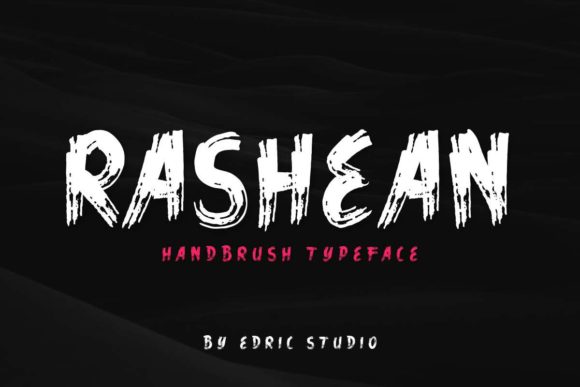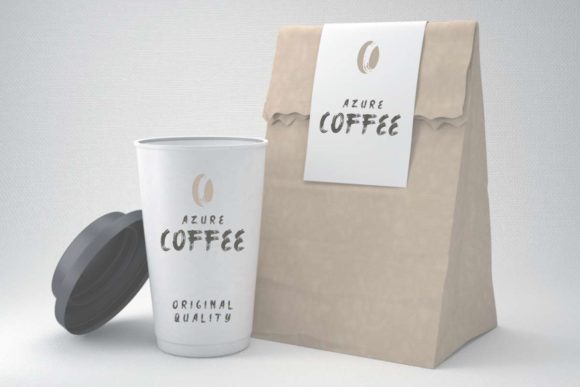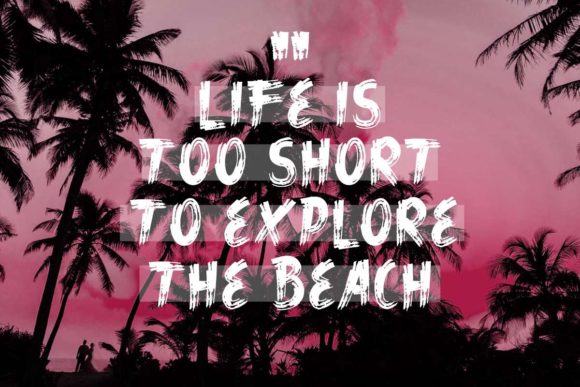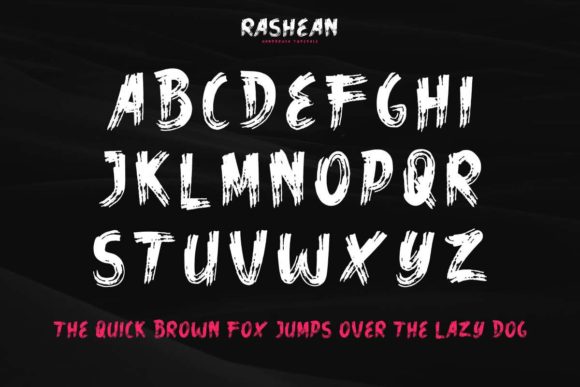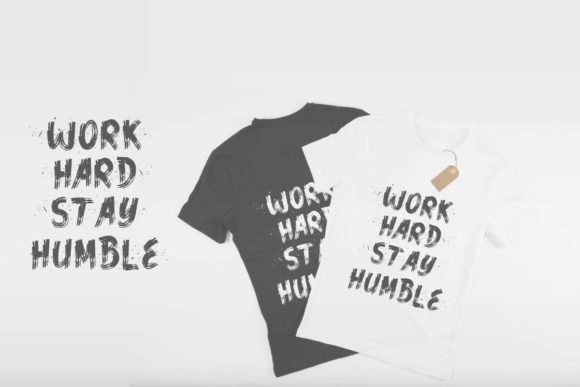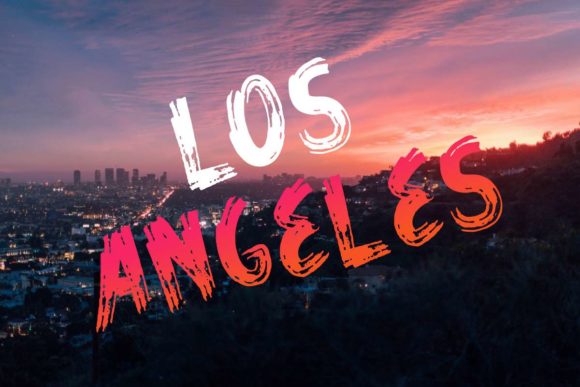
Introduction to Rashean Font Font
Fonts play a crucial role in design, and the Rashean Font font is a typeface that brings both character and versatility to any project. Whether you’re working on a branding project, a website, or a print design, the Rashean Font font offers a unique style that can elevate your work.
Rashean results out of a stunning pairing of a brush pen and pencil that makes it look incredibly endearing and authentic.
Use this gorgeous and unique handwritten font to bring any DIY project to life .
Key Features of Rashean Font Font
Why Choose Rashean Font Font?
The Rashean Font font is more than just a typeface – it’s a design tool that helps you communicate your message with style and clarity. Its unique character set and versatile design make it suitable for a wide range of applications, from elegant invitations to bold headlines.
With its carefully crafted letterforms and balanced proportions, the Rashean Font font ensures readability and visual appeal across all mediums.
What makes Rashean Font font special?
The Rashean Font font stands out with its unique design, exceptional readability, and versatility across various design applications.